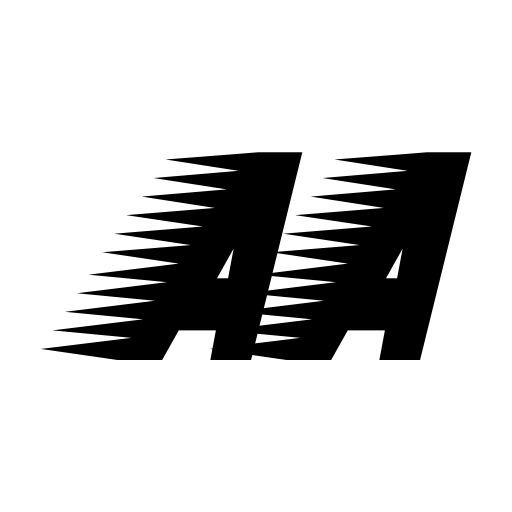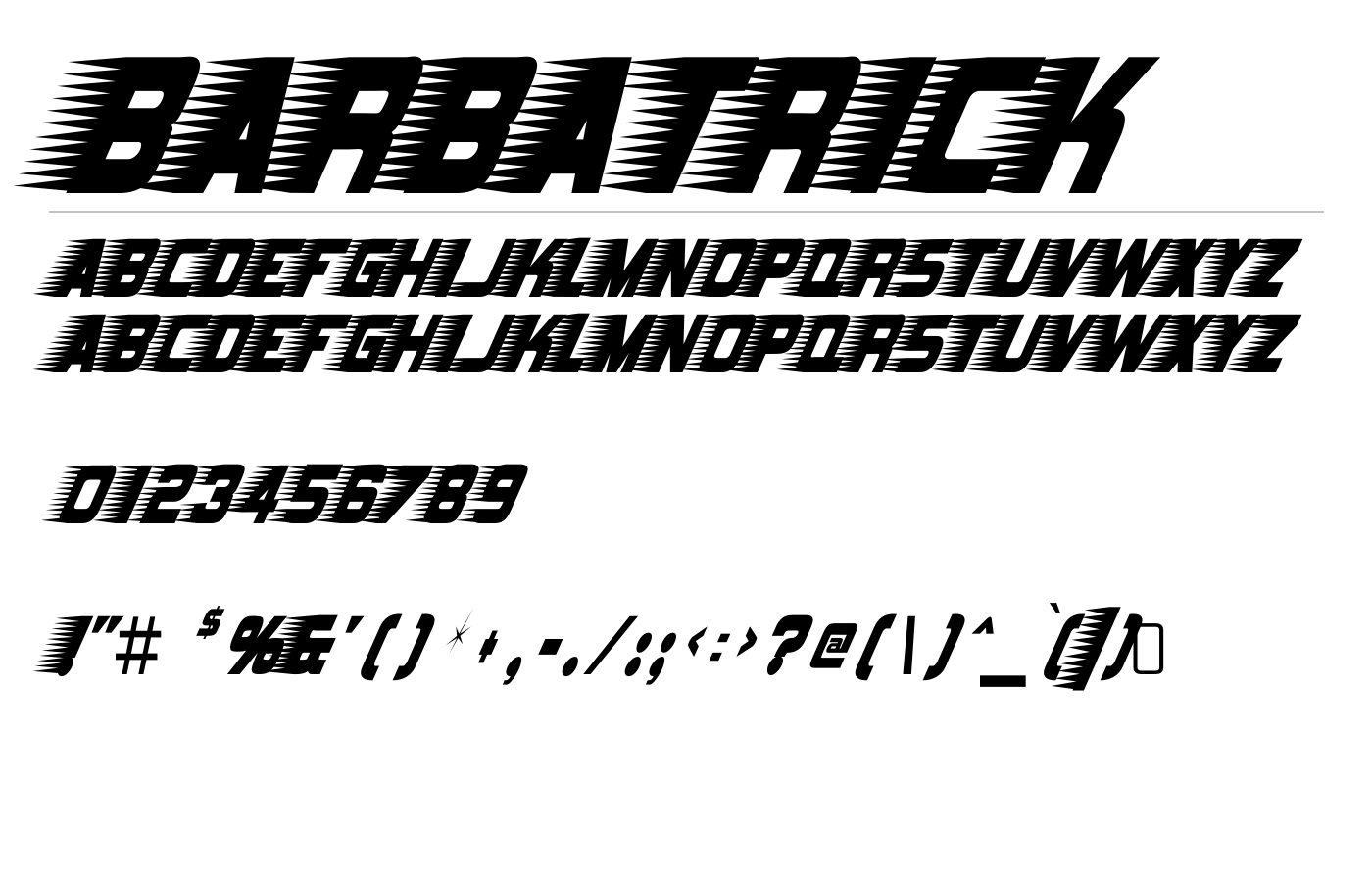
Barbatrick is a bold, condensed sans-serif font with a dynamic, fast-paced feel created by its sharp horizontal streaks that suggest motion or speed. Its uppercase-only letterforms feature strong geometric shapes and high contrast shadows, making it ideal for eye-catching headlines, sports branding, or any design needing an energetic, modern impact. This font’s futuristic and sporty style works best in logos, posters, and digital media where a sense of motion and intensity is desired.
Barbatrick Font
About Barbatrick Font